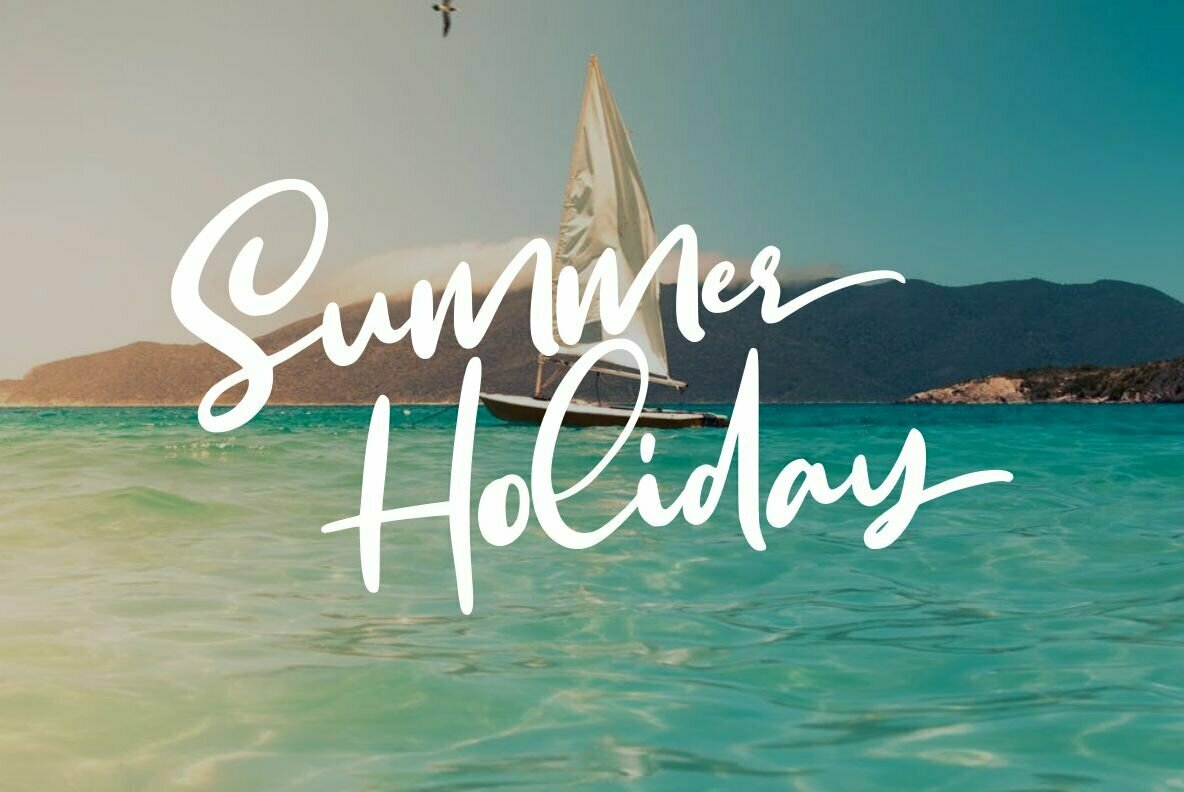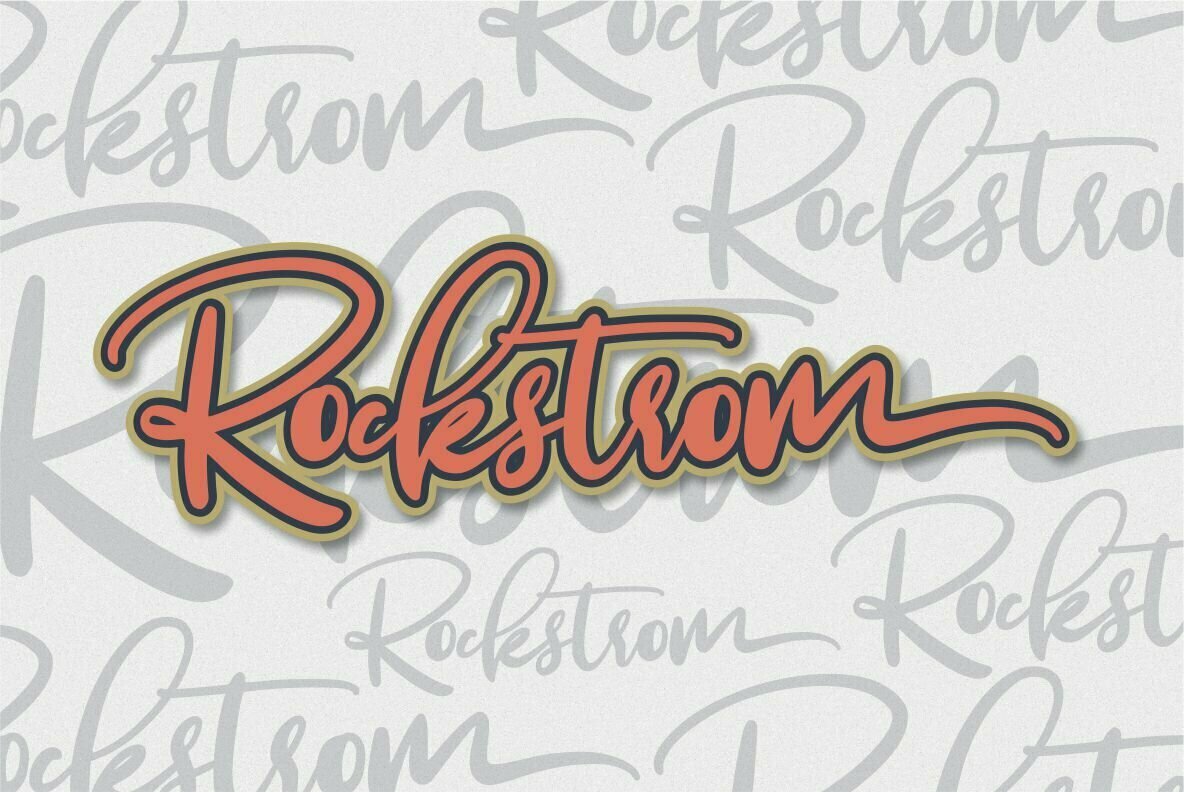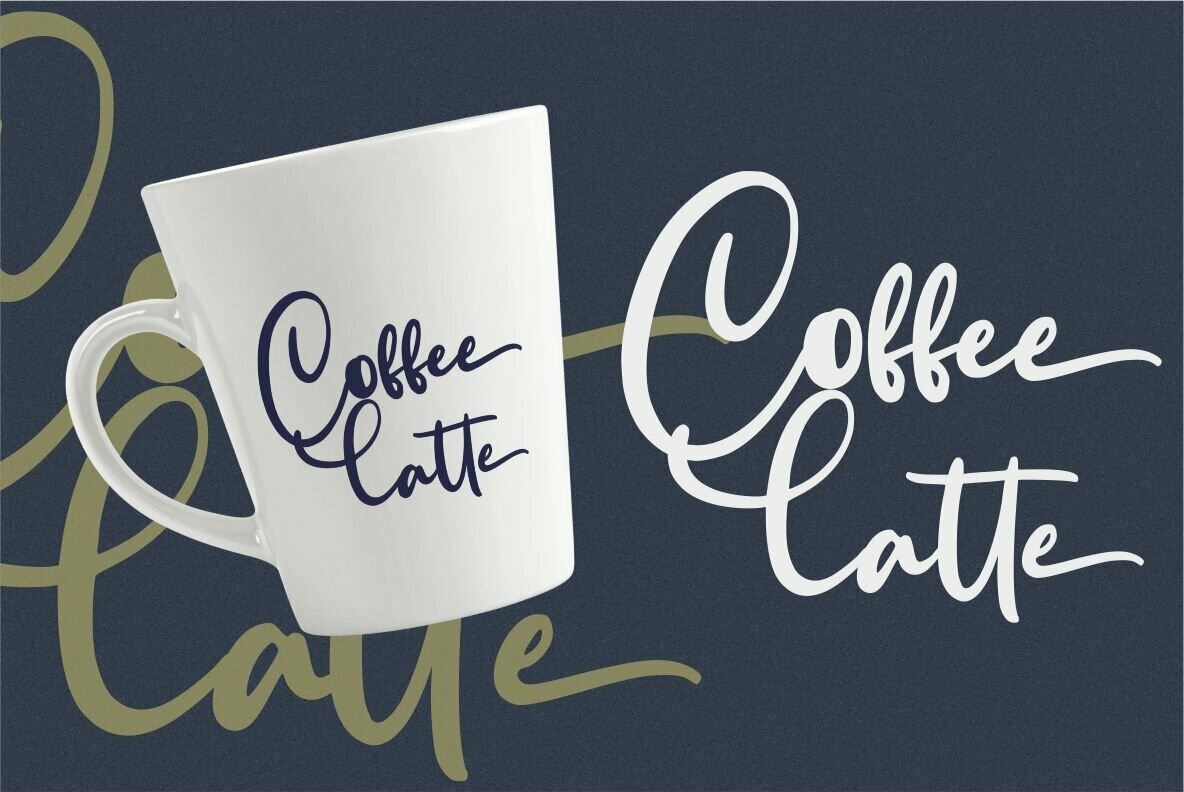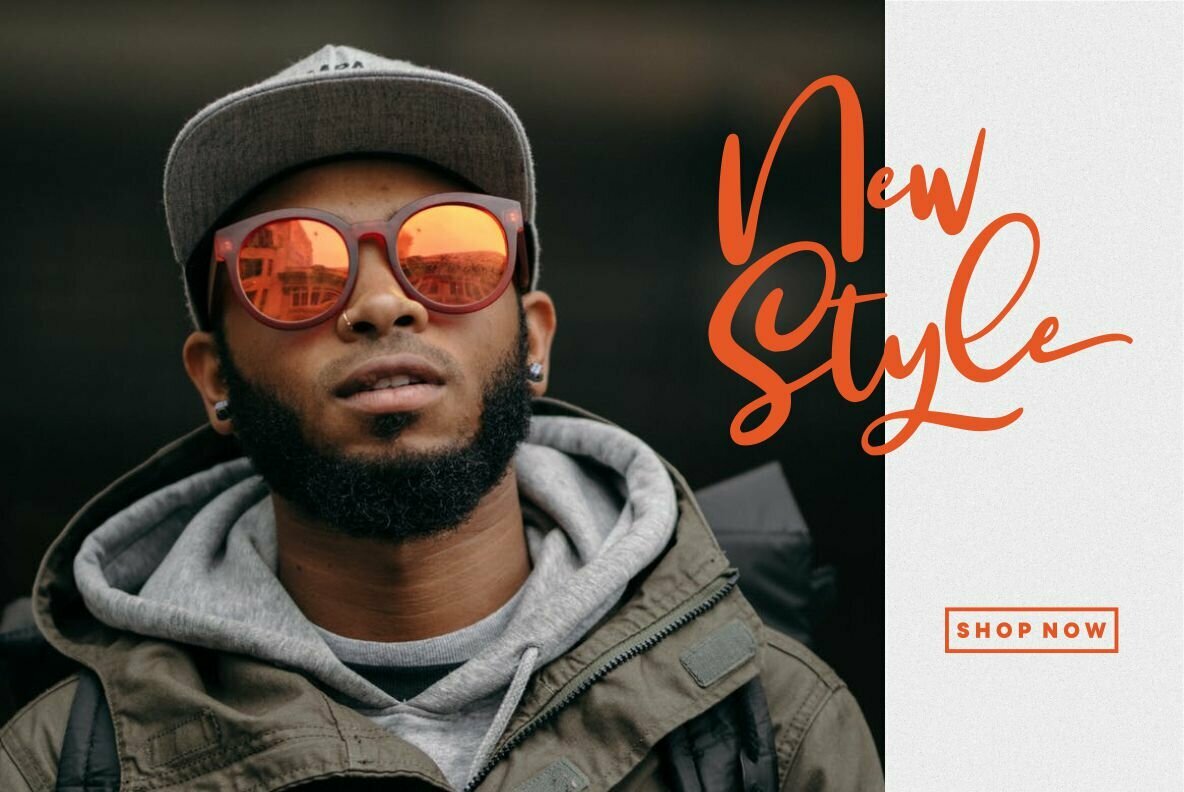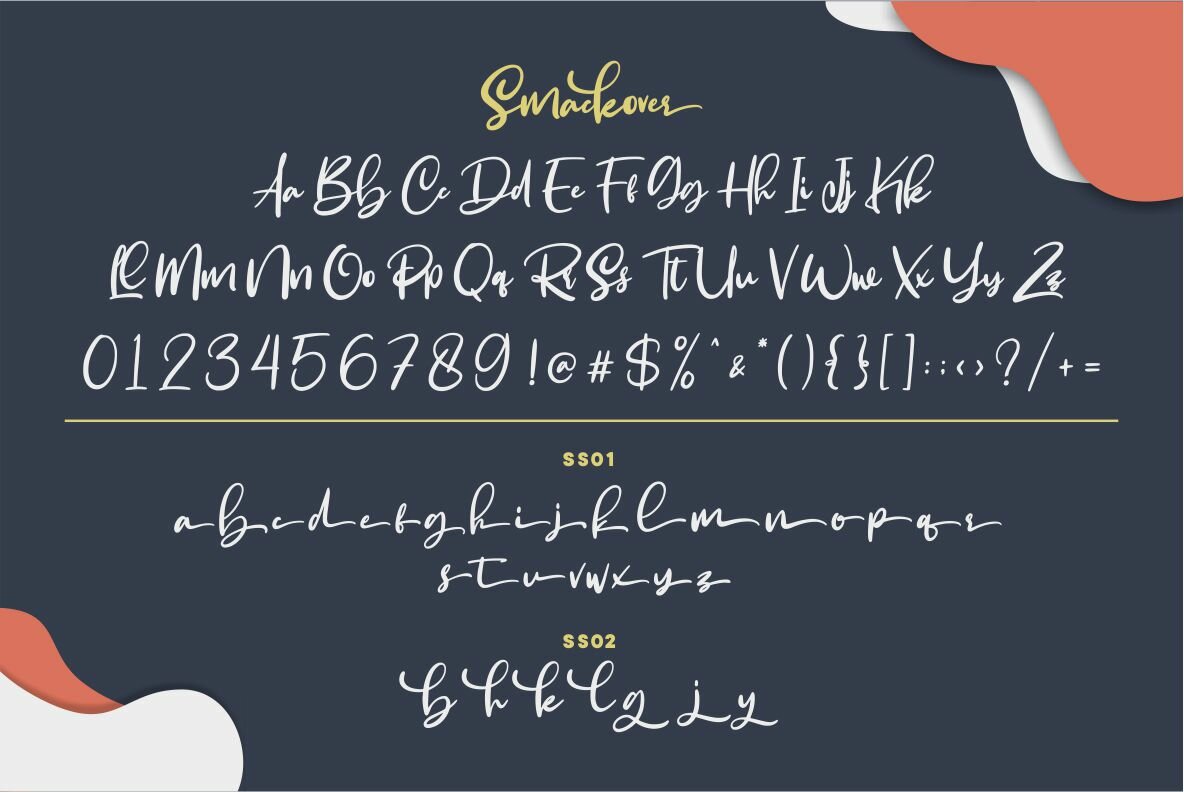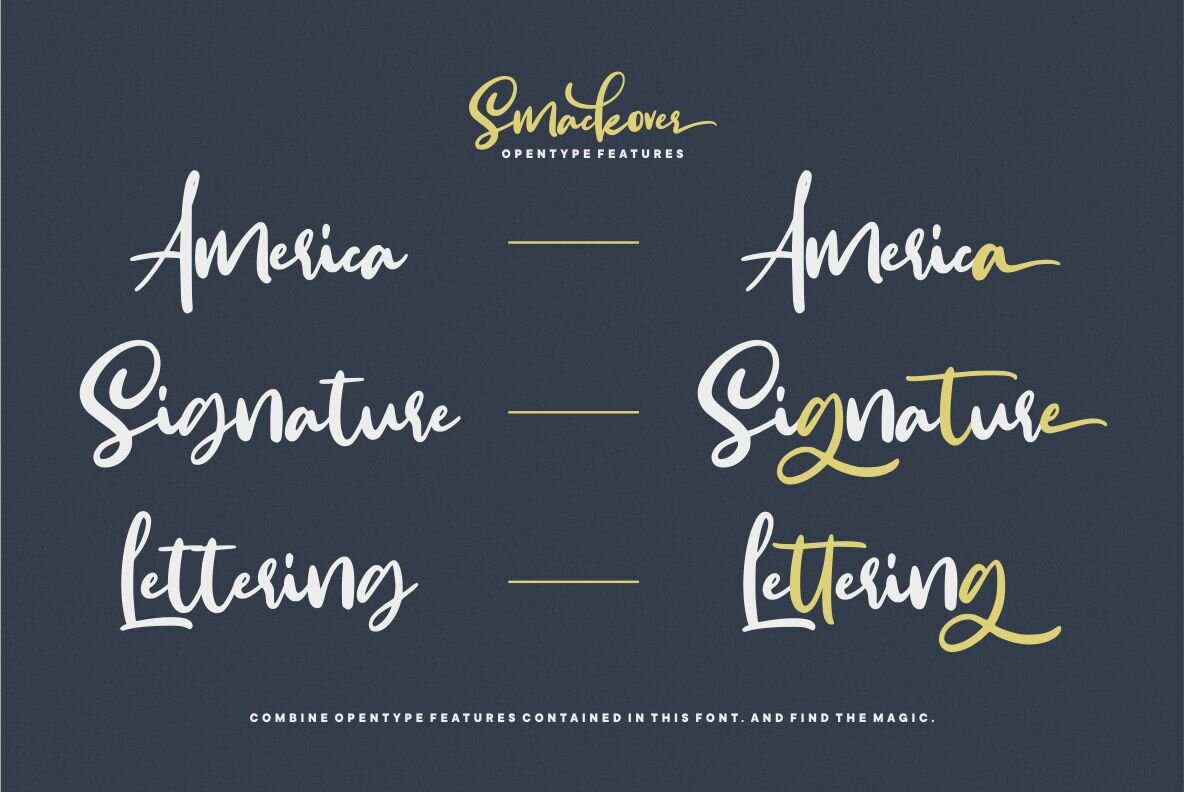
Smackover Font
Smackover
Smackover brings a personal touch to digital designs, capturing the essence of natural handwriting. With charming swashes in Stylistic Set 01, it offers an organic feel that enhances visual storytelling. The typeface includes unique Opentype features and ligatures, delivering a dynamic and aesthetic dimension to creative projects.Smackover: Handwritten Charm with Creative Flourishes
Smackover Swash enables seamless integration for innovative and cohesive design solutions.